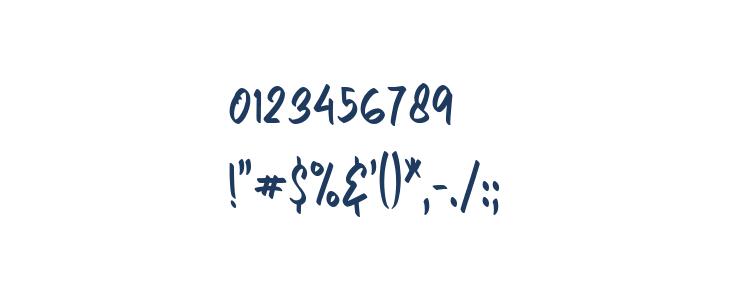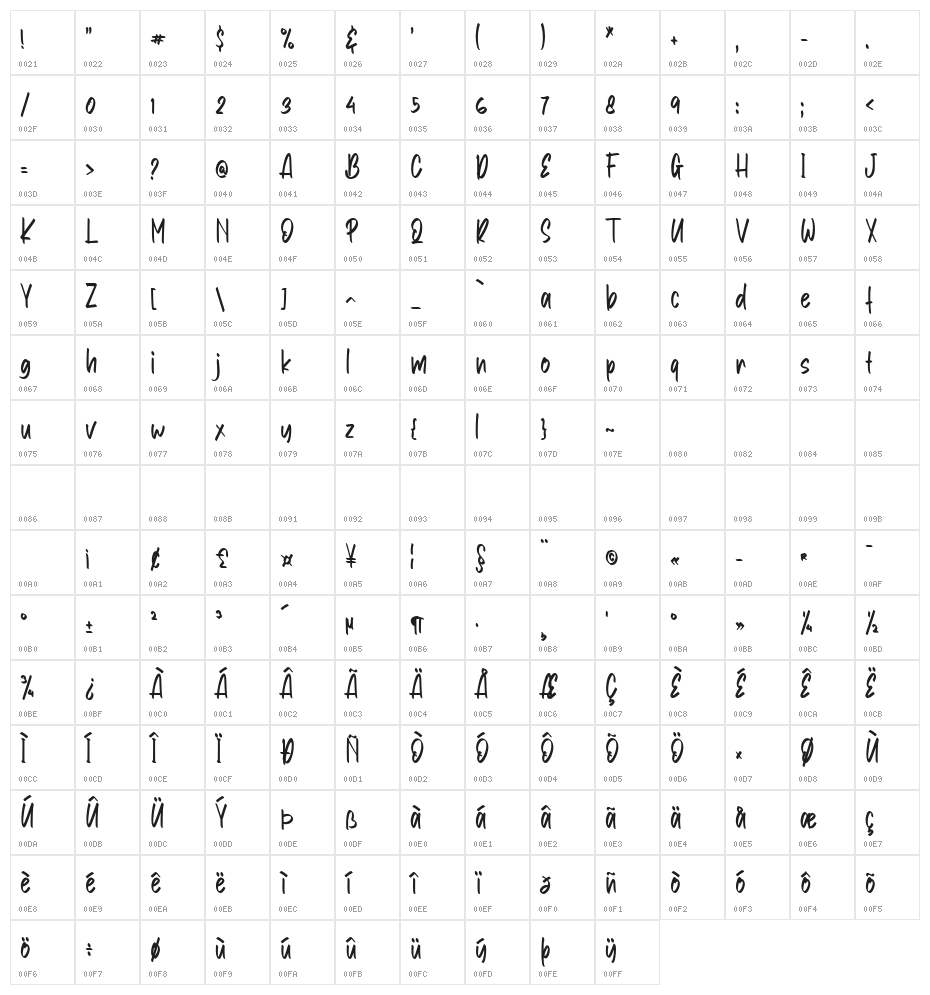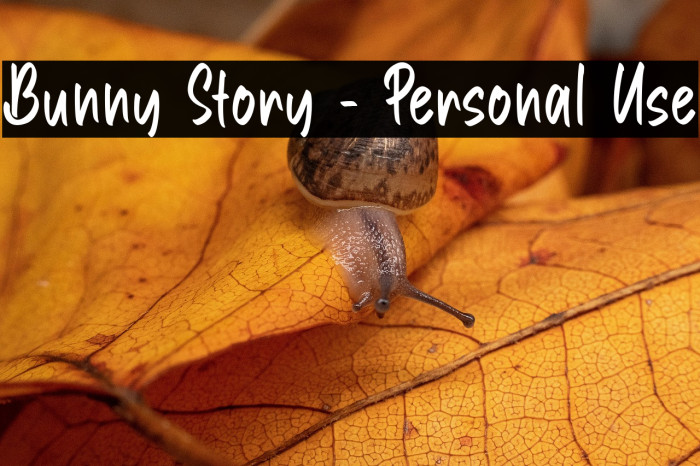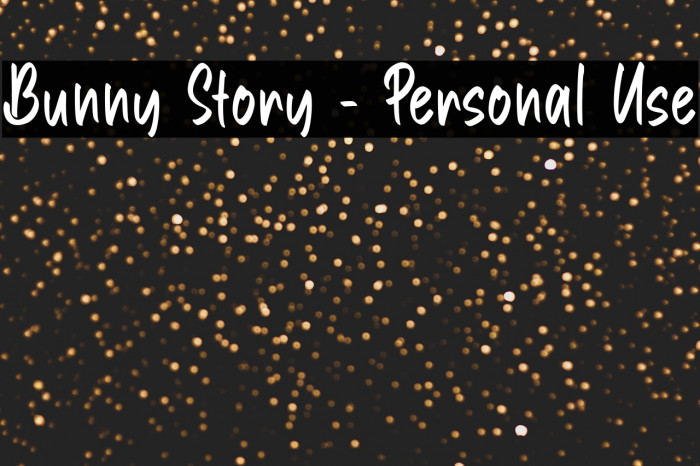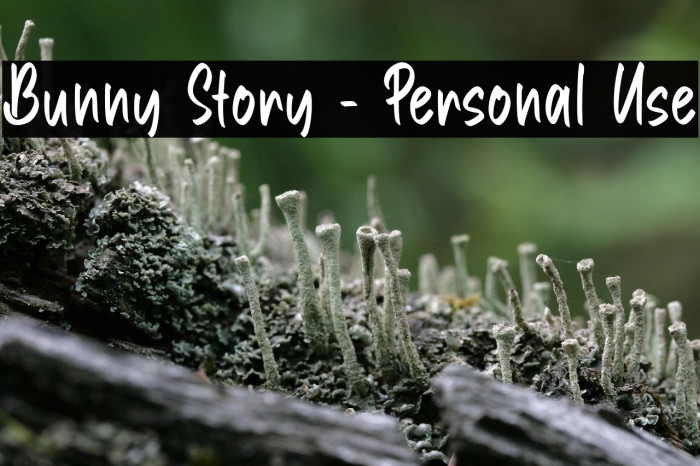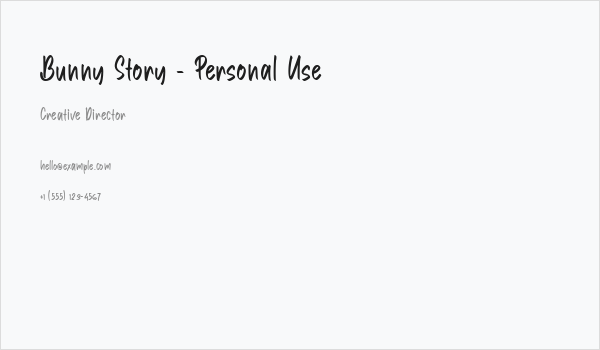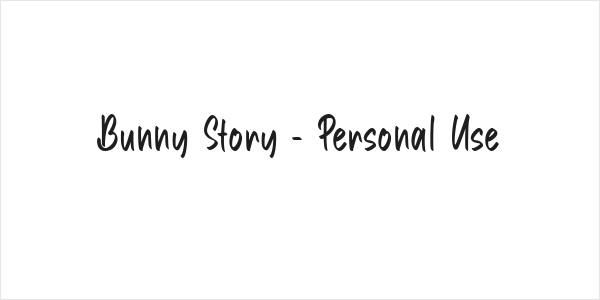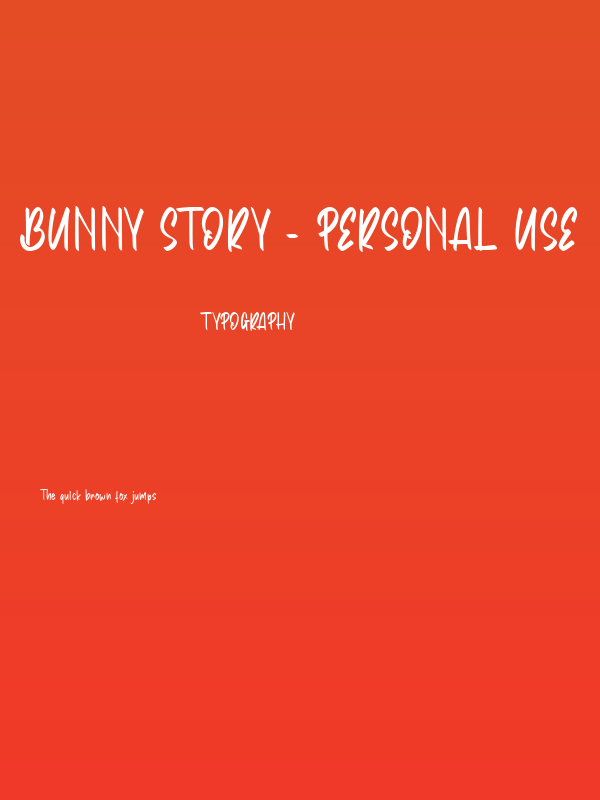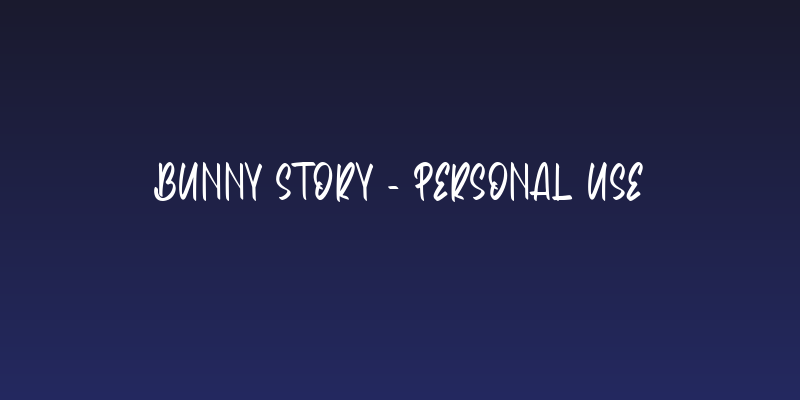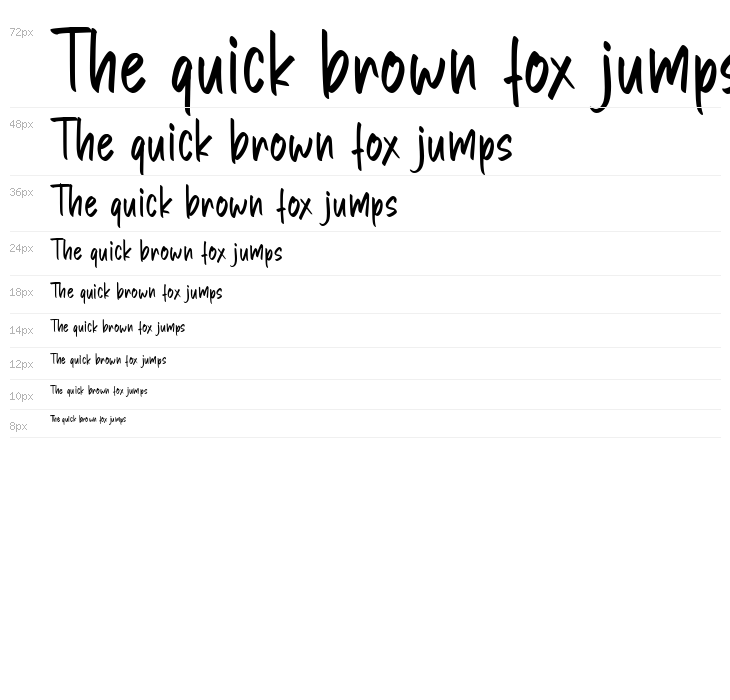
Bunny Story - Personal Use Font
Bunny Story - Personal Use Description
This playful and energetic font features a handwritten style with a casual and friendly appearance. The characters are slightly slanted, giving it a dynamic feel, while maintaining legibility. The strokes are moderately thick, with a consistent weight that adds to its boldness. The uppercase and lowercase letters are well-balanced, and the numbers and special characters complement the overall design. Its informal style makes it suitable for projects that require a personal touch.
| Use Case | Logos, Headlines, Informal Text |
| Proposed Projects | Ideal for greeting cards, children's books, playful branding, and social media graphics. |